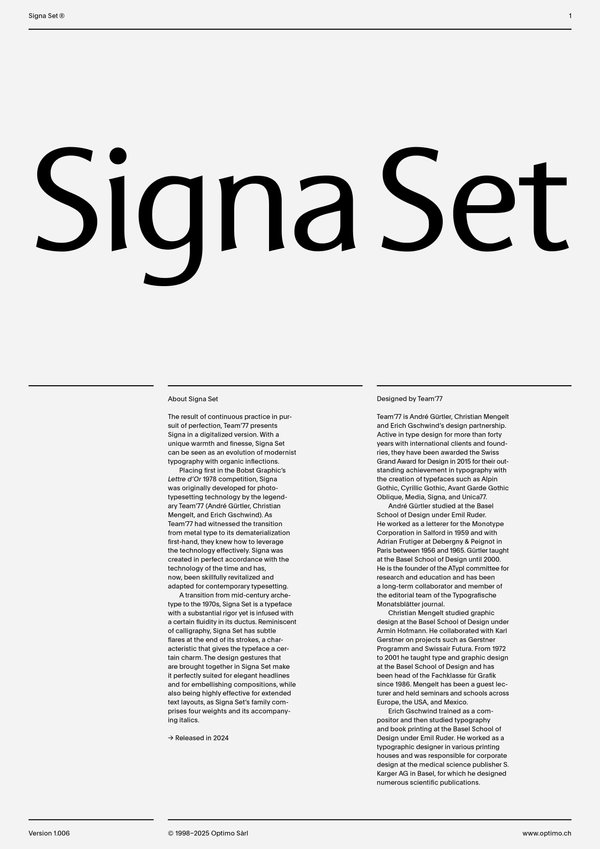
Signa Set
Case Sensitive Forms
This function formats the text in uppercase and adjusts spacing between all capital letters. It also applies the ‘Case Sensitive Forms’ feature which replaces certain characters with alternates that are better suited for all capital text, especially related to punctuation.
Contextual Alternates
This feature adapts the position of a glyph after its surrounding context. For instance, a dash placed between two uppercase letters or numbers will be replaced by an uppercase version of the dash, slightly higher. This feature is usually active by default in Adobe applications.
Alternate b d g p q
Double-storey g
Tabular Lining Figures
Based on the proportions of the capitals, lining figures have an invariable height. With the combination of the tabular spacing format, the width of each numeral is uniformized. This feature is useful when numerals need to all lined up. It facilitates the reading of numbers set within columns or tables. As some applications don’t have access to this feature, proportional figures are set as the default choice.
Lowercase math symbols
This feature activates alternate lowercase positioning of mathematical symbols.
This feature replaces any letter following a numeral with its matching superior letters. French language uses the ordinal indicators such as ‘er’ for 1er premier, while Spanish, Portuguese and Italian require the feminine and masculine ordinals ‘a,’ ‘o’ for 1º, 1ª. Ordinals are designed to match the weight of the typeface.
Slashed Zero
Originally created to avoid the confusion between the ‘0’ and the ‘O’, this feature substitutes all zeros in a selected text by a slashed form of the zero.
Multiply sign
This feature substitutes the letter “x” into the multiplication sign.
This feature substitutes glyphs with their matching smaller alternates. The numerators are the same glyphs that are used to create fractions, their vertical position remains within the capital letters height. These glyphs are reduced in size and designed slightly heavier to keep them consistent with the rest of the font.
This feature substitutes glyphs with their matching smaller alternates and low position glyphs. The denominators are the same glyphs that are used to create fractions, their vertical position remains within the base line. These glyphs are reduced in size and designed slightly heavier to keep them consistent with the rest of the font.
Superscript/Superiors
This feature substitutes glyphs with their matching smaller alternates which are set slightly above the height of the capital letters. These glyphs are reduced in size and designed slightly heavier to keep them consistent with the rest of the font.
Subscript/Inferiors
This feature substitutes glyphs with their matching smaller alternates which are set slightly below the baseline. These glyphs are reduced in size and designed slightly heavier to keep them consistent with the rest of the font.
Standard Ligatures
Standard ligatures replaces a sequence of characters with a single ligature glyph, they are designed to improve kerning and readability of certain letter pairs.
A transition from mid-century archetype to the 1970s, Signa Set is a typeface with a substantial rigor yet is infused with a certain fluidity in its ductus. Reminiscent of calligraphy, Signa Set has subtle flares at the end of its strokes, a characteristic that gives the typeface a certain charm. The design gestures that are brought together in Signa Set make it perfectly suited for elegant headlines and for embellishing compositions, while also being highly effective for extended text layouts, as Signa Set’s family comprises four weights and its accompanying italics.